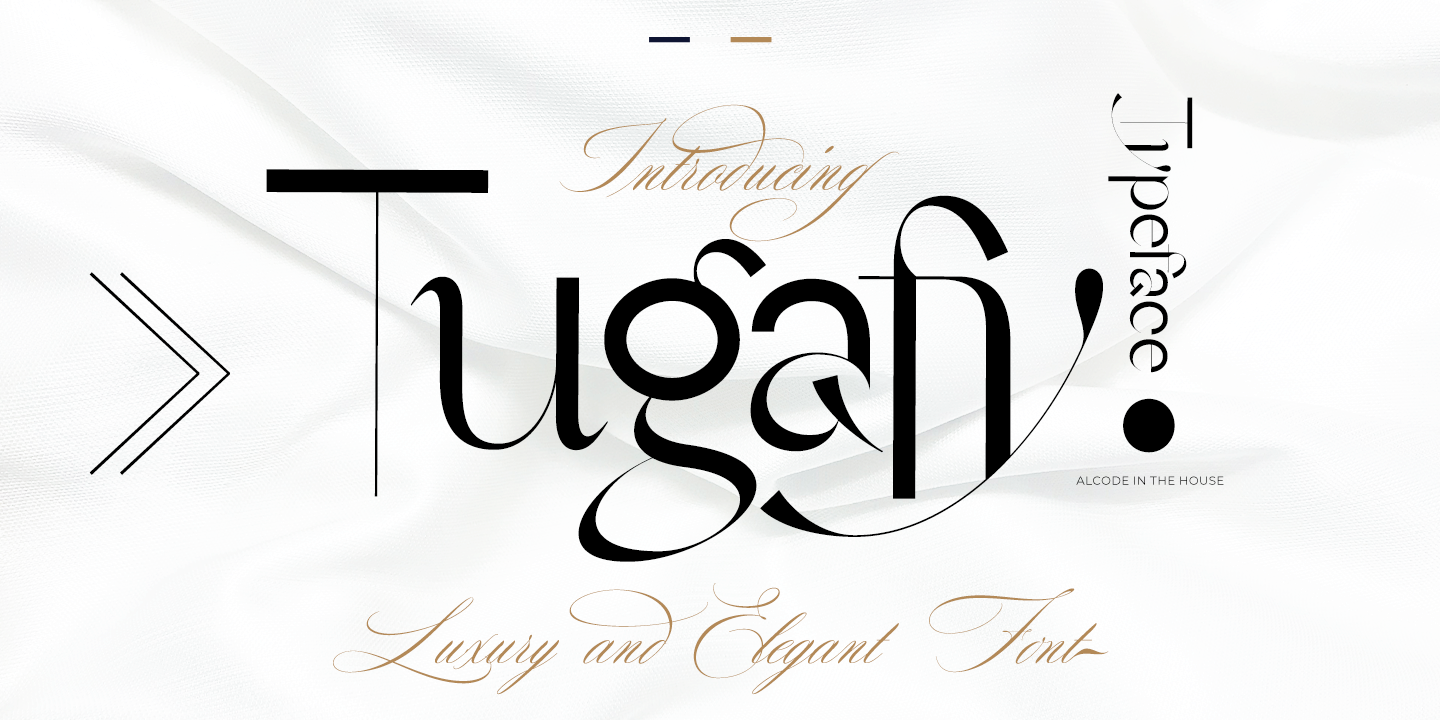
The Tugafy Font is an excellent choice for designs that demand a bold, impactful, and often playful or energetic aesthetic, perfect for making a vibrant statement. Imagine it gracing the covers of modern comic books, adding a dynamic and fun feel to video game titles, or bringing a distinctive, street-art inspired vibe to urban streetwear designs. It's also perfectly suited for captivating event posters for youth-oriented gatherings, unique branding for creative startups, and any project where you want to convey energy, excitement, and a fresh, contemporary edge. With its strong character and often expressive forms, the Tugafy Font is ideal for projects that aim for maximum visual impact and a memorable impression.
What makes the Tugafy Font truly exciting is its ability to instantly project a sense of modern dynamism and creative flair. It’s designed to grab attention with its commanding presence, making your message resonate with an undeniable force and youthful appeal. This font often features unique letterforms that feel both robust and expressively drawn, setting it apart from more conventional typefaces. It's perfect for establishing a brand identity that feels powerful, imaginative, and unapologetically unique, ensuring your visual communication is not just seen, but truly felt. The Tugafy Font Free Download offers a fantastic opportunity to infuse your projects with this high-energy character.
The Tugafy Font family is typically designed to offer versatility while maintaining its signature bold and expressive style. While specific family members can vary, you can often expect to find:
Tugafy Regular
Tugafy Bold (for even greater emphasis and powerful headlines)
Tugafy Outline (for a unique display effect, adding depth)
Tugafy Shadow (for a playful three-dimensional appearance)
Tugafy Italic (for a slanted, dynamic look)
Tugafy Distressed (or Textured, for a grittier, worn-out feel)
These variations provide flexibility for different design applications, allowing you to create engaging visual hierarchies and maintain a consistent, powerful aesthetic across all your projects.